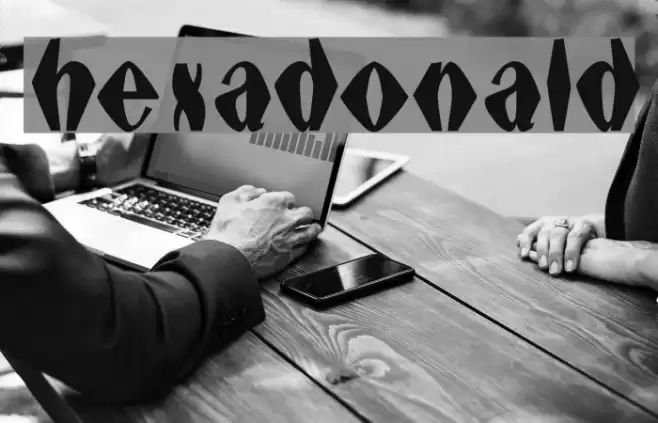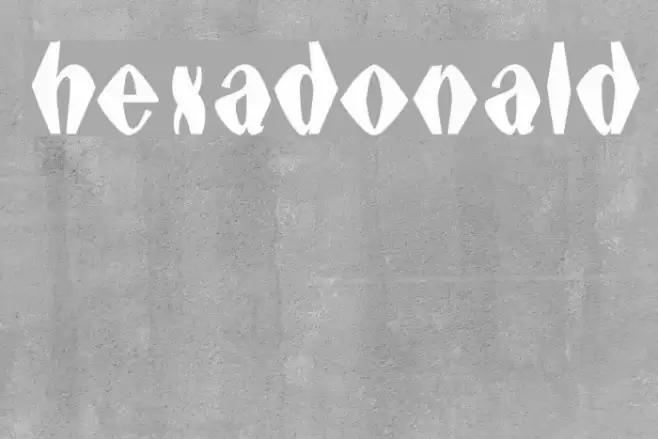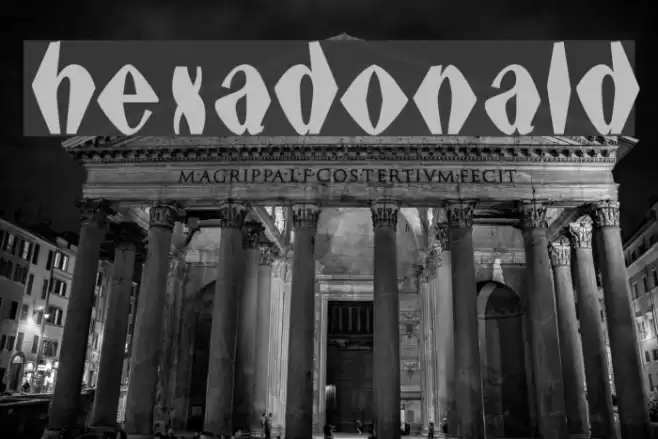
hexadonald Font
hexadonald Description
This font features a bold and striking design with angular, geometric shapes that give it a futuristic and edgy appearance. The characters are crafted with sharp edges and varying line thickness, creating a dynamic and visually engaging style. The uppercase letters are particularly distinctive, with unique forms that stand out, while the lowercase letters maintain a consistent aesthetic. The numbers and special characters follow the same bold and angular theme, ensuring a cohesive look across all elements. This font is ideal for projects that require a modern and impactful visual presence.
A bold, angular font with a futuristic and edgy design from Decorative fonts.
- Proposed Projects: Ideal for branding, posters, album covers, and any project needing a modern, impactful look.